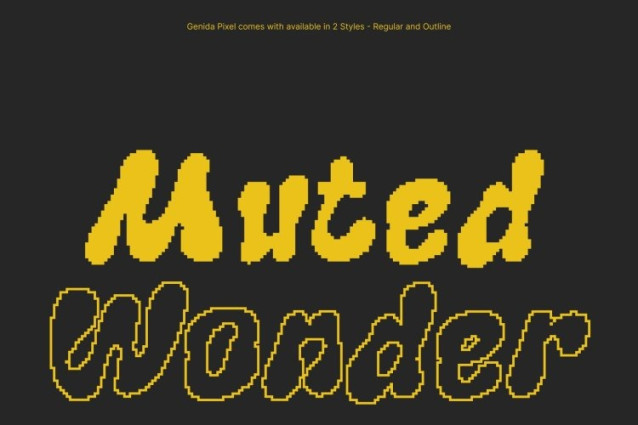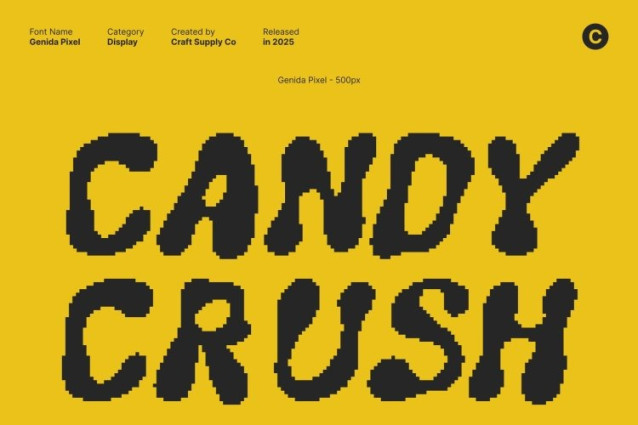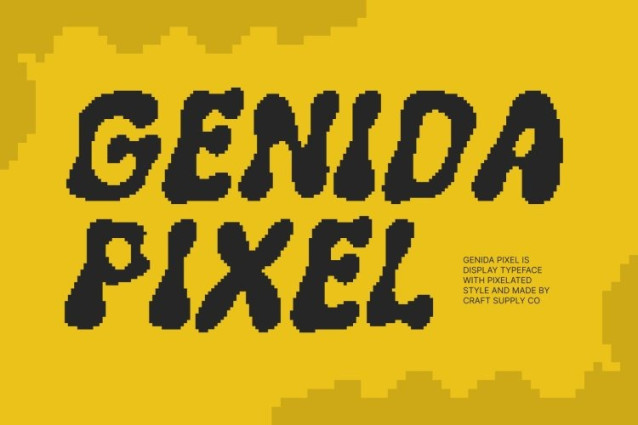
Genida Pixel Font
Genida Pixel Font This display font features retro, groovy shapes enriched with decorative curves that bring a lively, playful, and energetic feel. Each character carries a bold sense of personality, making the font perfect for designs that aim to capture movement, rhythm, and nostalgic fun.
8-Bit Digital Inspiration for Vintage Tech Appeal
Blending groovy curves with digital charm, the font resembles the iconic 8-bit era of old computer graphics and vintage arcade games. Its pixel-influenced style adds a layer of classic digital texture that instantly evokes memories of early technology, giving your designs a distinctive retro-tech identity.
Perfect for Games, Interfaces, and Nostalgia Themes
With its retro digital character, this font fits seamlessly into game UI, retro game titles, nostalgia-themed websites, posters, t-shirts, and infographics. Its expressive forms make it a powerful option for projects that want to highlight early digital aesthetics or playful vintage vibes.
Expressive, Nostalgic, and Visually Unique
By merging funky retro curves with classic pixel-inspired elements, this font provides a truly unique visual presence. It’s ideal for bold branding, creative displays, and any project that wants to embrace the nostalgic charm of early technology with a fresh, artistic twist.